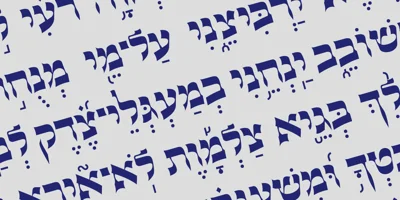
Hebrew Europa Font
Hebrew Europa Font is perfect for Jewish cultural design projects including synagogue publications, Hebrew language schools, Jewish community centers, Israeli cultural organizations, Hebrew text publishing, Jewish heritage museums, kosher restaurants, and authentic Judaic marketing campaigns. This distinguished typeface works perfectly for Torah study materials, Hebrew educational programs, Jewish cultural festivals, Israeli tourism boards, and projects that celebrate the rich linguistic heritage and spiritual traditions of Hebrew script and Jewish culture.
What makes Hebrew Europa Font exciting is its elegant Hebrew character that perfectly captures the essence of Jewish cultural sophistication and Hebrew script beauty. The font features traditional letterforms with European refinement that reflects the scholarly tradition and cultural elegance of Hebrew typography. Its sacred design elements embody the spirit of Jewish learning and Hebrew linguistic heritage, making it perfect for projects that need to convey tradition, spirituality, and connection to Jewish culture. The carefully crafted Hebrew proportions create an atmosphere of cultural sophistication and Jewish authenticity.
Hebrew Europa Font comes in multiple family variations including traditional, elegant, scholarly, and cultural styles. Each weight maintains the distinctive Hebrew character while offering different levels of cultural intensity and Jewish presence. The font family includes Hebrew alternates, Jewish ligatures, and traditional variations that provide designers with comprehensive options for creating truly authentic and culturally resonant typographic compositions that celebrate Hebrew excellence.
Whether you're designing Jewish branding, creating Hebrew marketing materials, or developing cultural promotional graphics, Hebrew Europa Font provides the perfect typographic foundation for projects that celebrate Hebrew excellence and Jewish sophistication. This remarkable typeface transforms ordinary text into compelling expressions of Jewish wisdom and Hebrew elegance. Download this distinguished font today and honor your design projects with the Hebrew authenticity and Jewish cultural refinement that captures the essential spirit of Hebrew linguistic heritage and Jewish traditions.